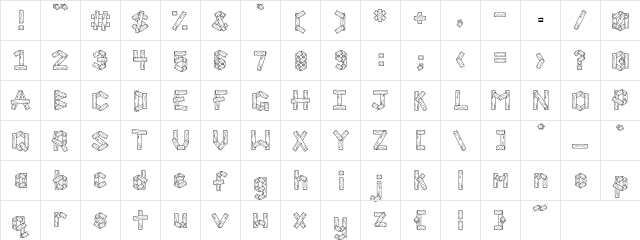
DJ Scrap Wood Regular
Design Context for DJ Scrap Wood Typeface
DJ Scrap Wood taps into classic Western woodtype traditions — bold, characterful, and impossible to ignore.
A natural fit for craft spirits, ranch branding, rodeo events, and Americana-inspired design work.
Font Pairing: Combine DJ Scrap Wood with a simple slab or neutral sans — period-accurate companions reinforce the vintage feel without competing for attention.
Pro Tip: Use DJ Scrap Wood for short, impactful bursts of text — it shines in poster headlines and product names rather than extended copy.